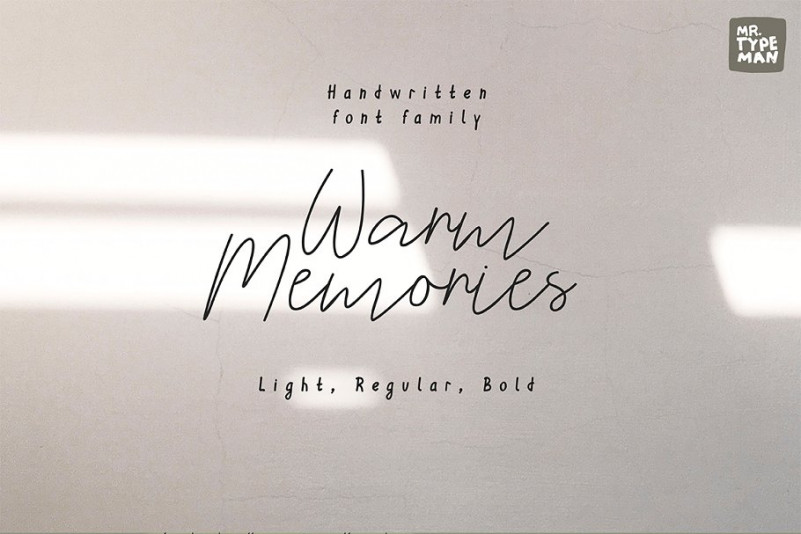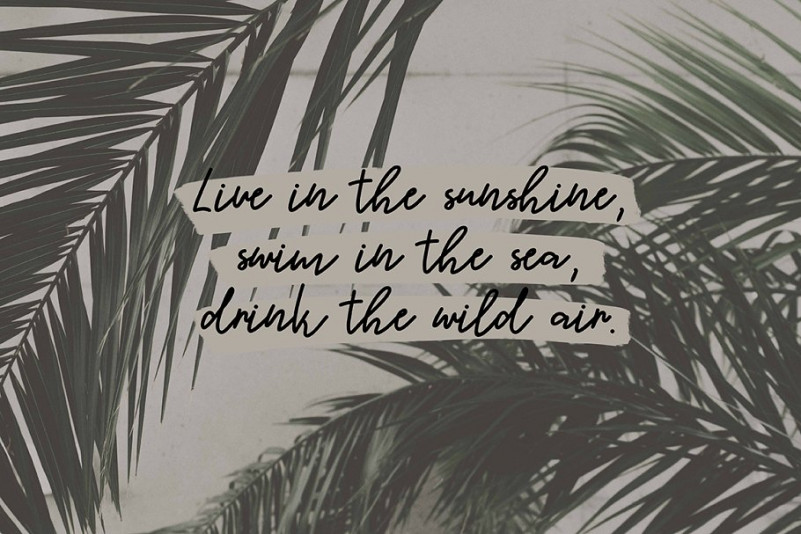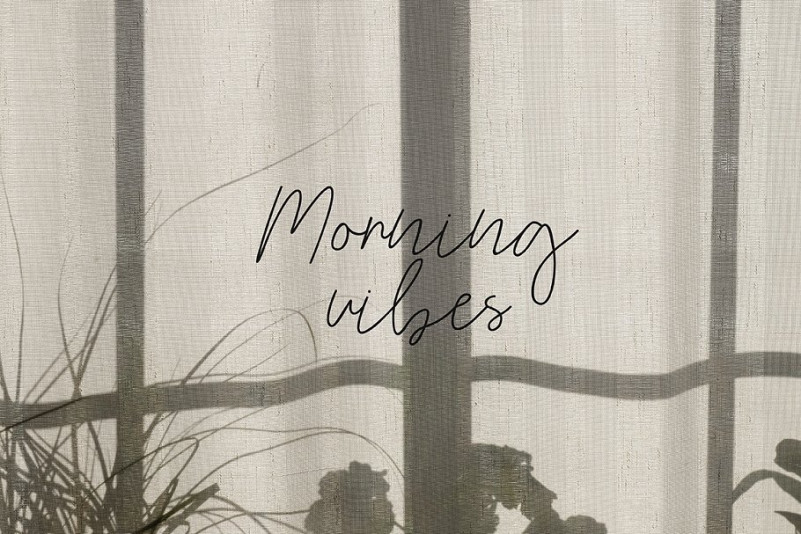
Warm Memories Handwritten Font
Warm Memories is an elegant font trio. It gives you the opportunity to create stylish and modern designs, every time you use it.
Warm Memories comes with uppercase, lowercase, standard punctuation, numerals and special letters for most of the European languages.
Warm Memories is an elegant font trio. It gives you the opportunity to create stylish and modern designs, every time you use it.
Full version of Warm Memories comes with uppercase, lowercase, standard punctuation, numerals and special letters for most of the European languages.